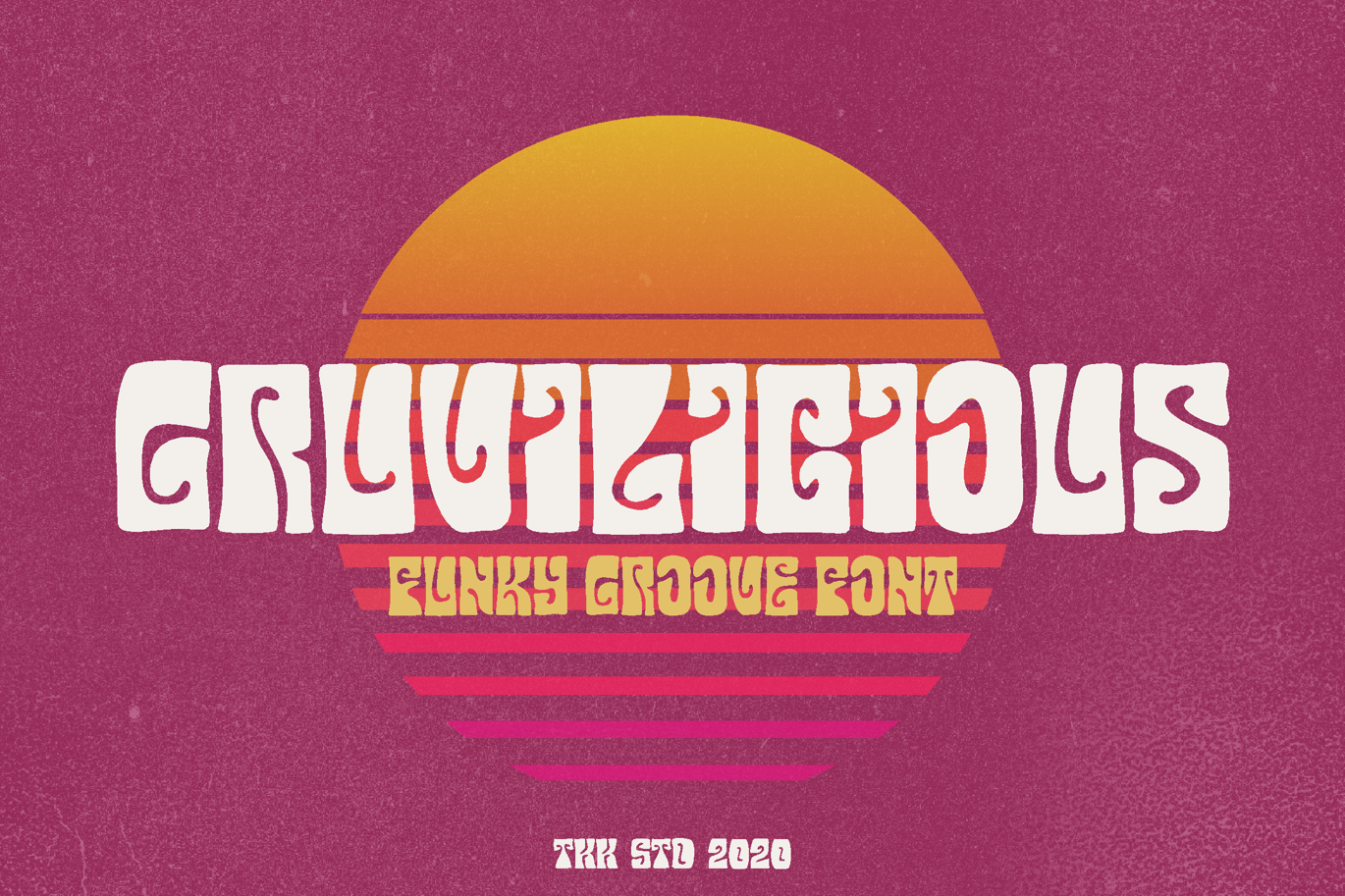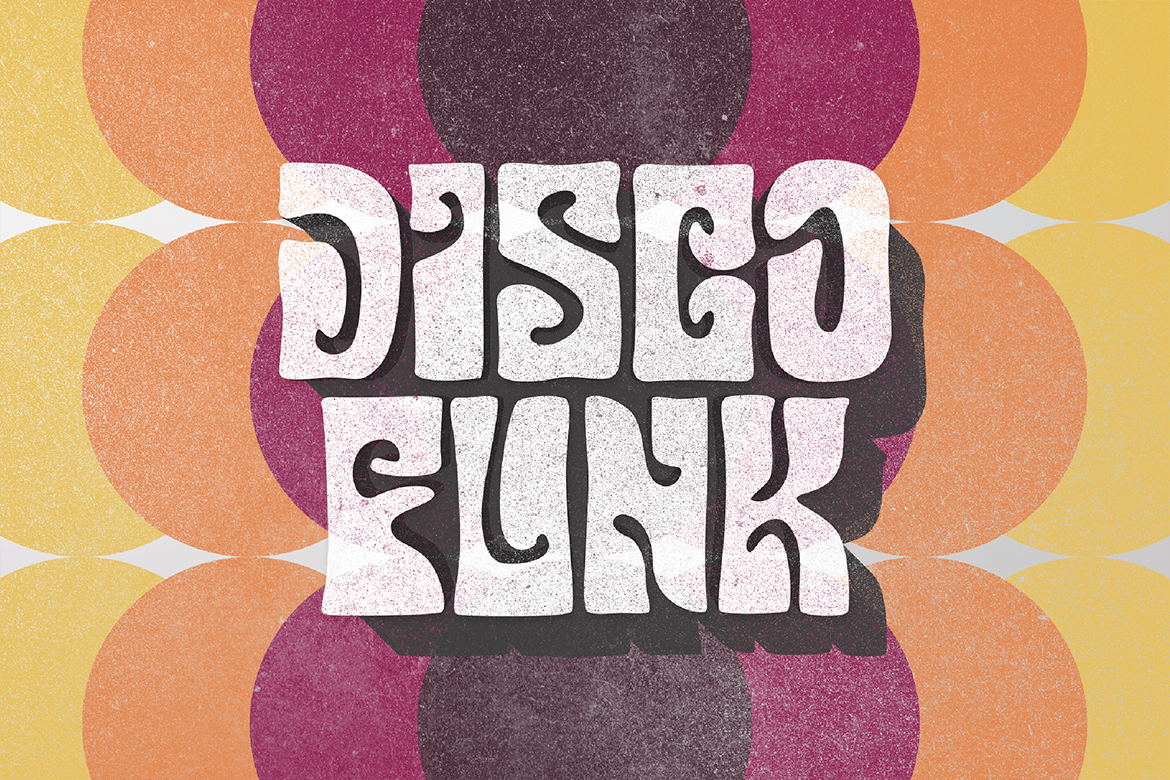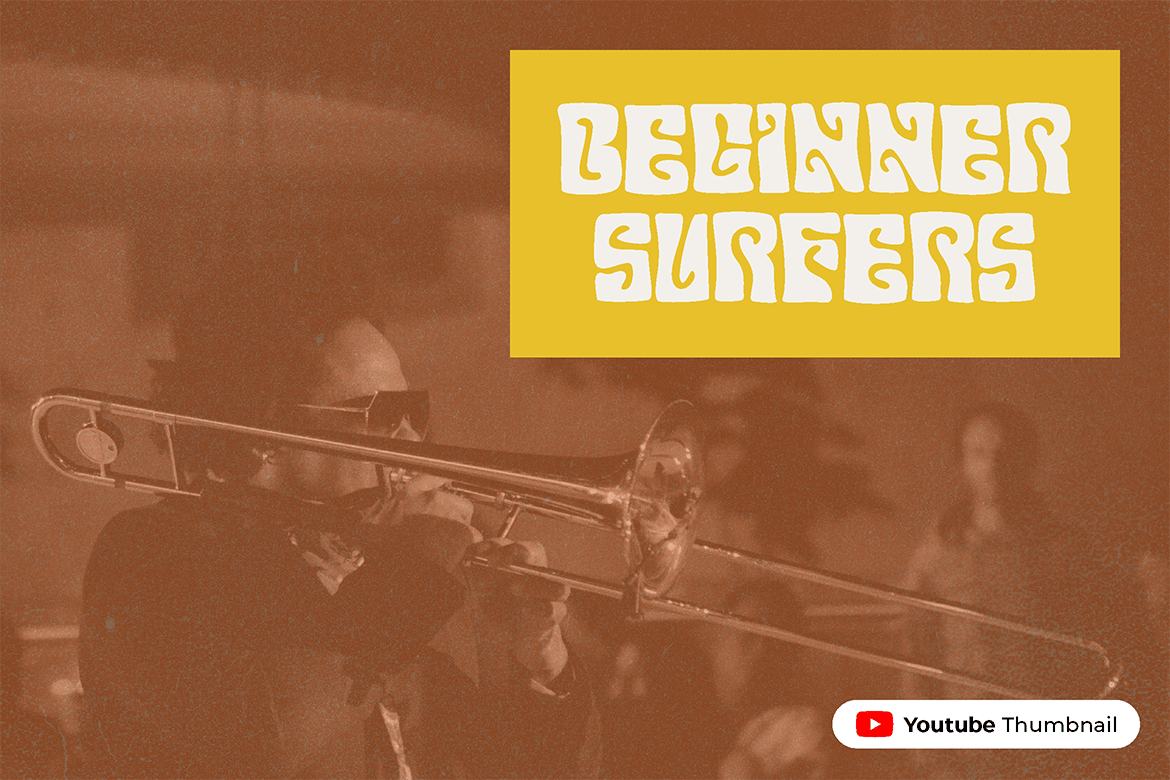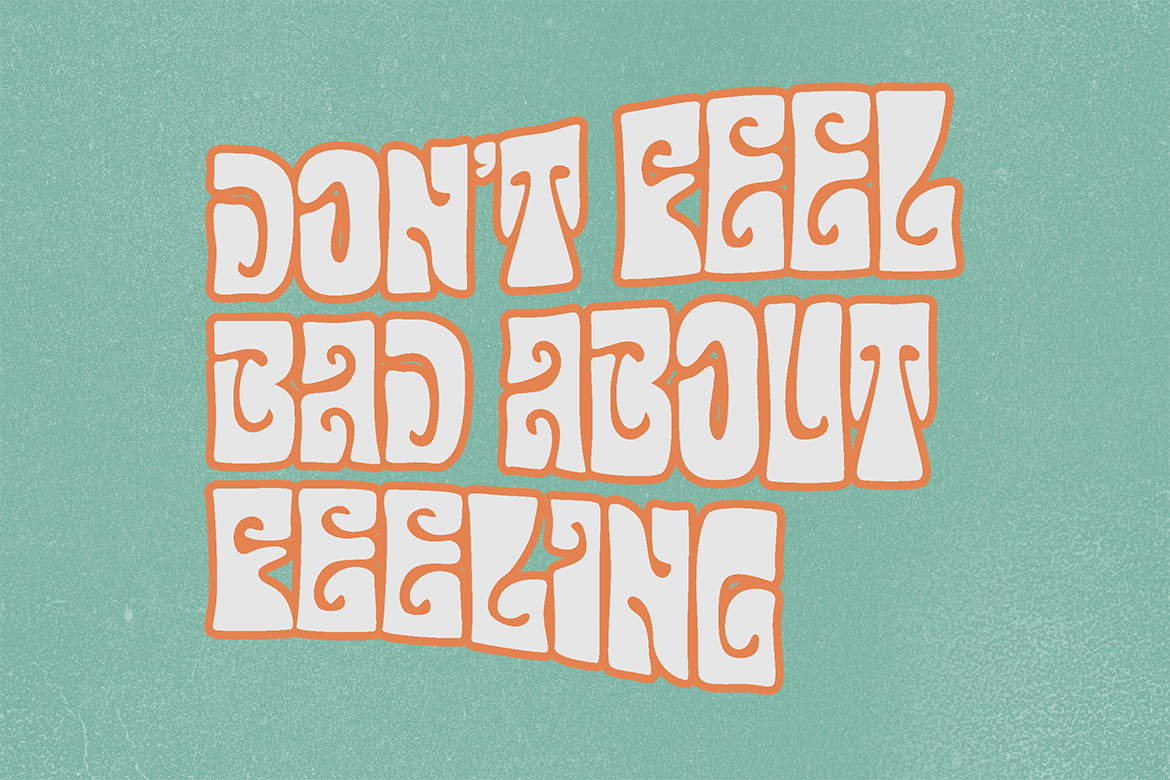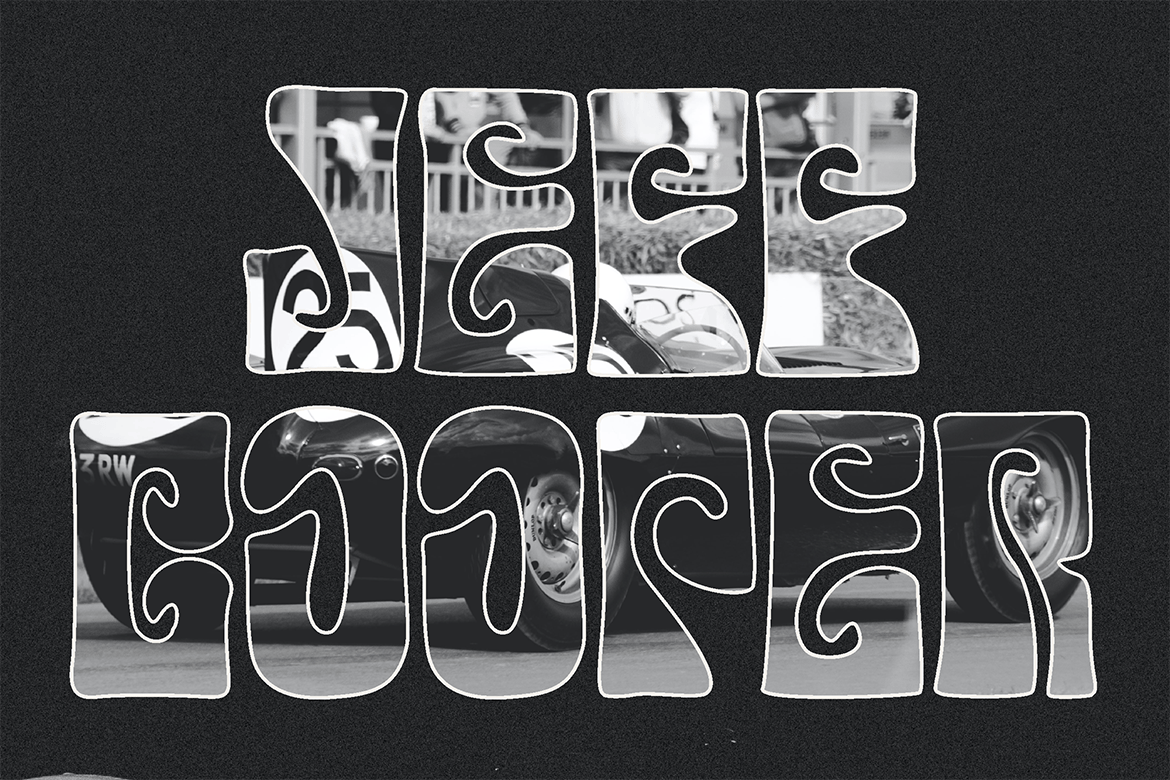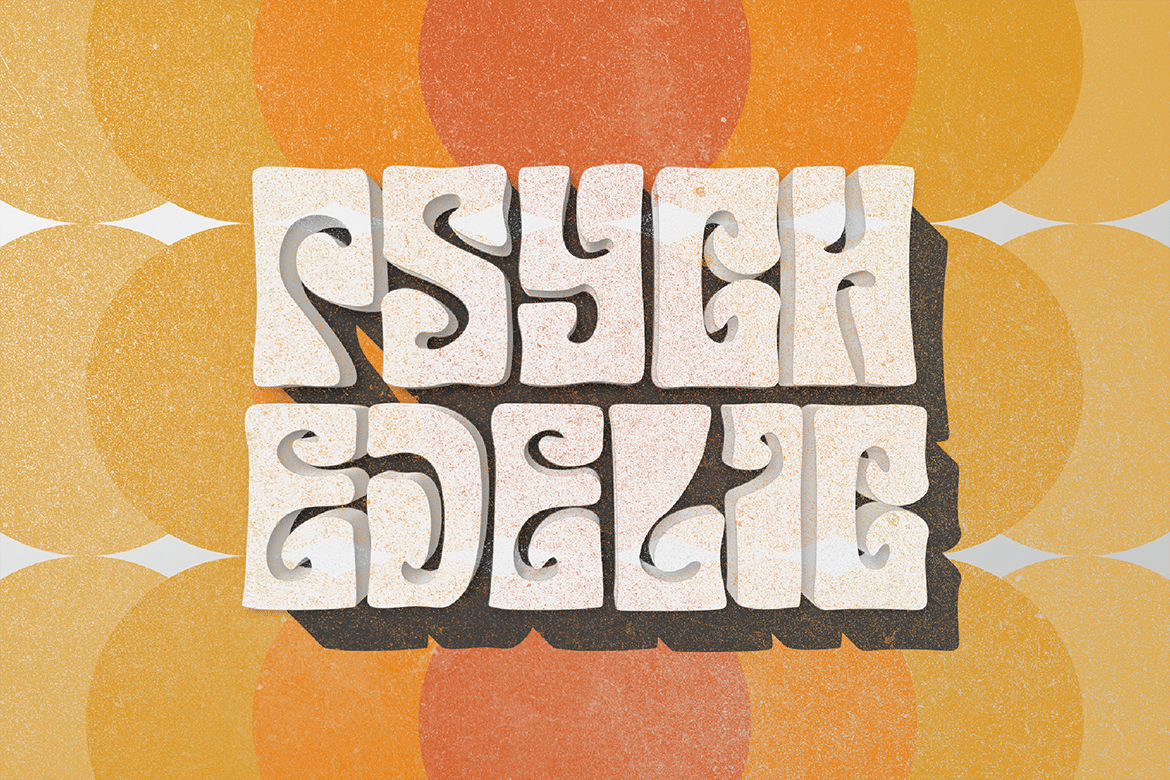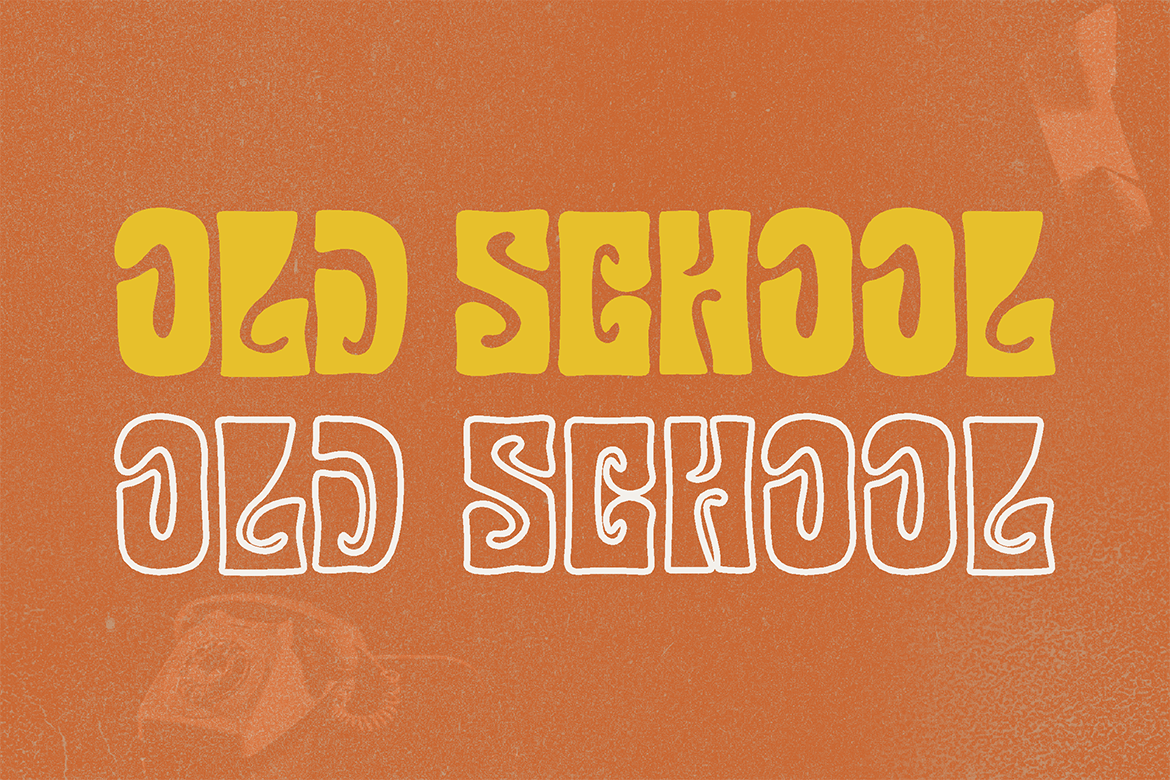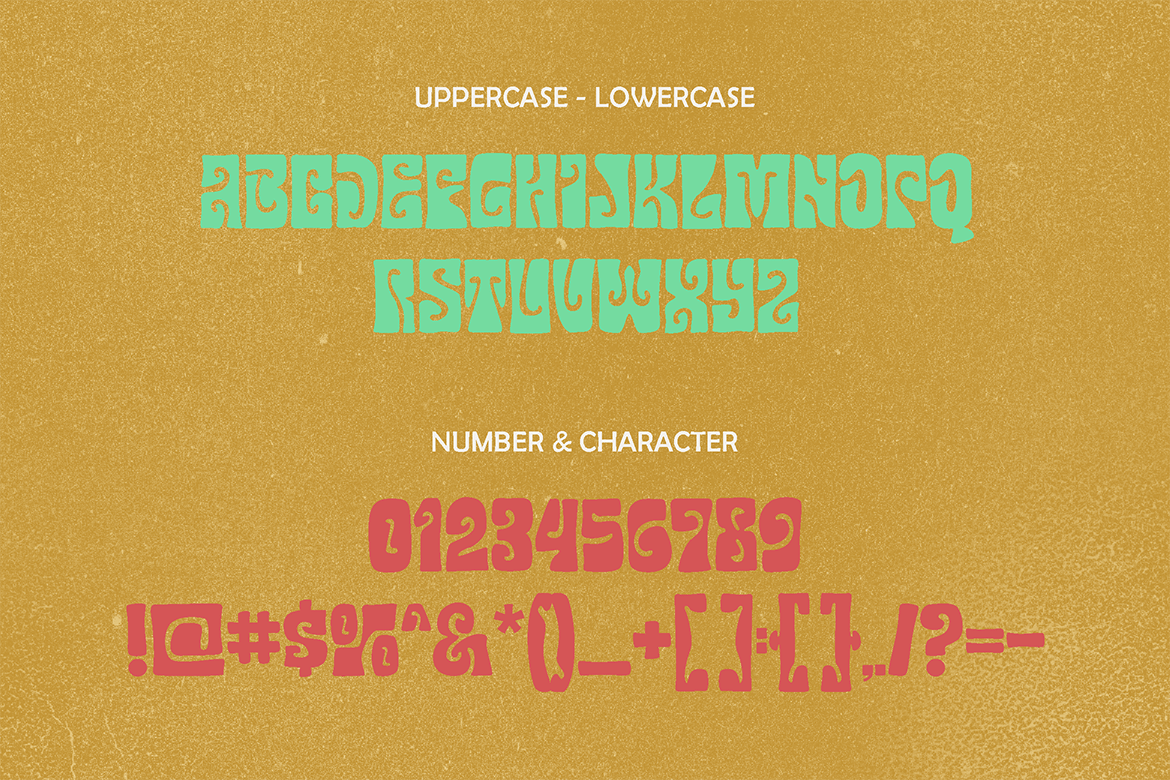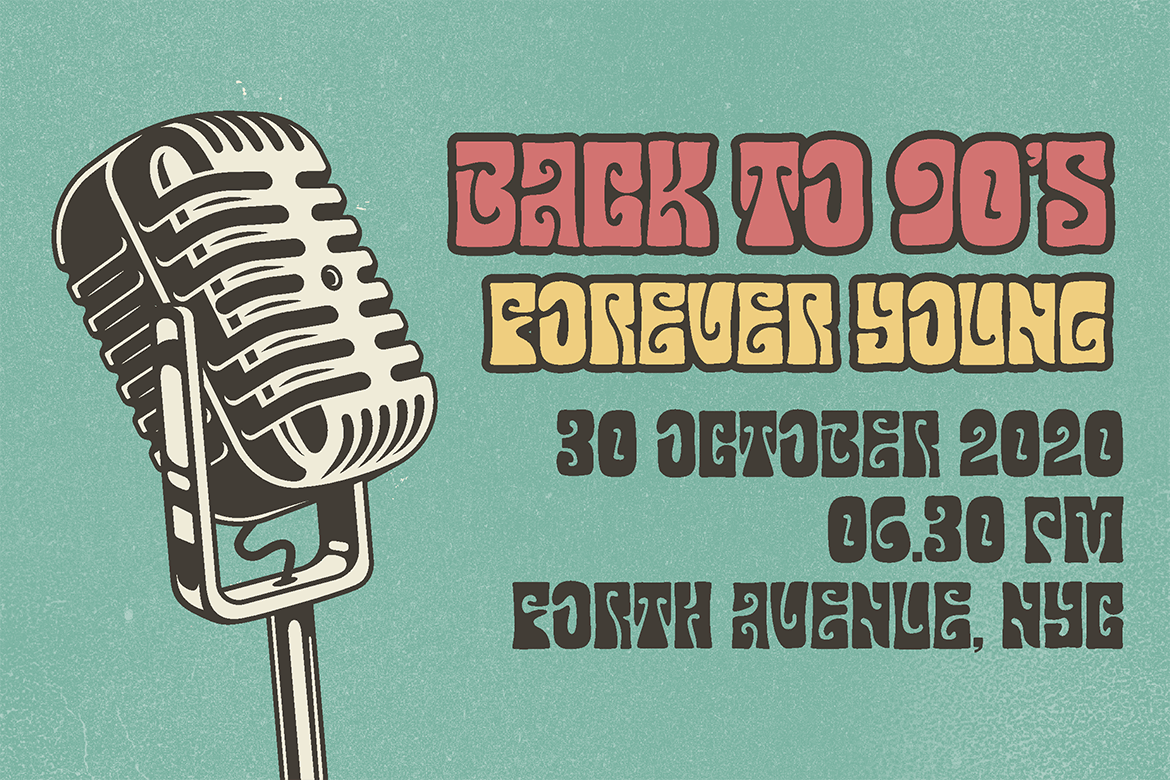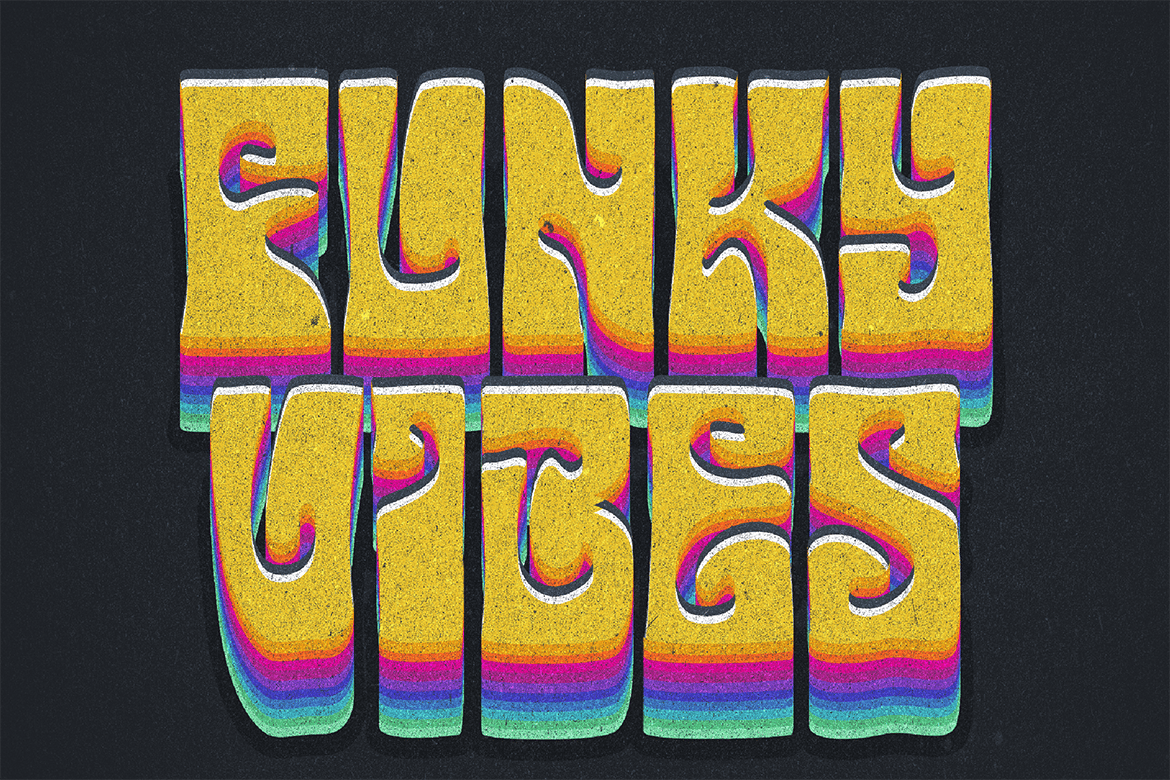
Gruvilicious – Retro Groovy Font
Let the groove make you moves. Feel the 70s and 80s vibe on the Gruvilicious font. The funky and psychedelic vibe is all over the place. Get that funk again !
- Reguler and Outline version